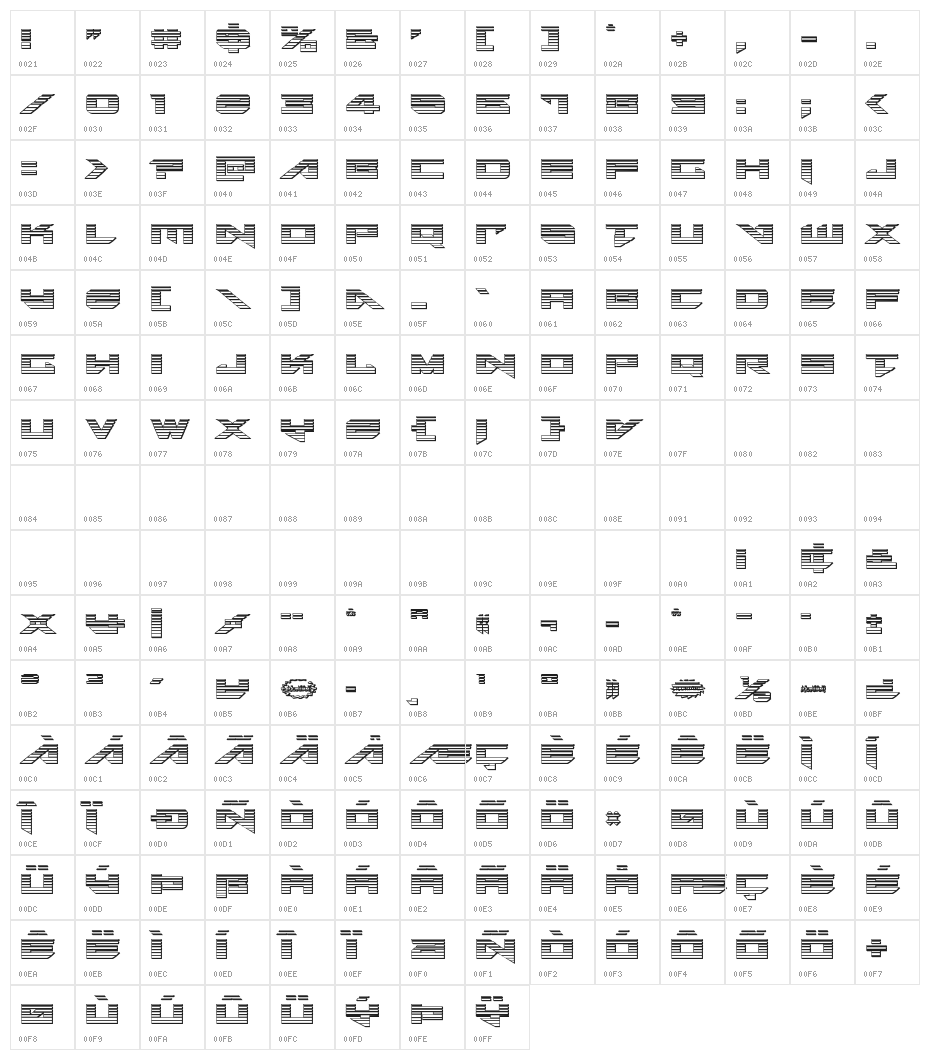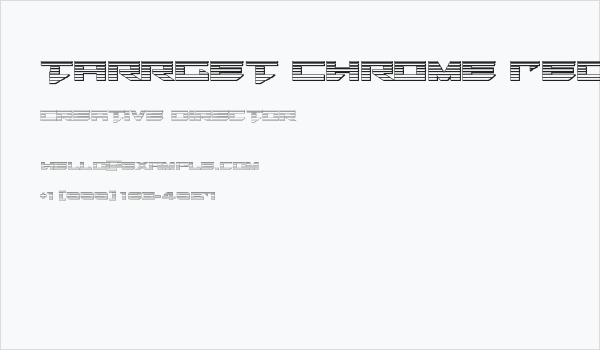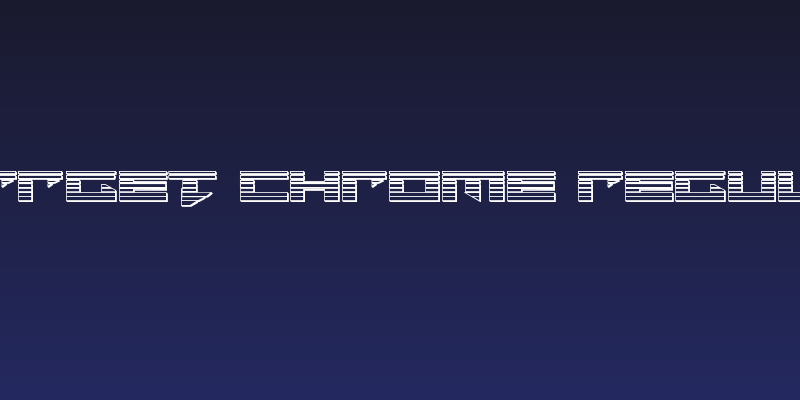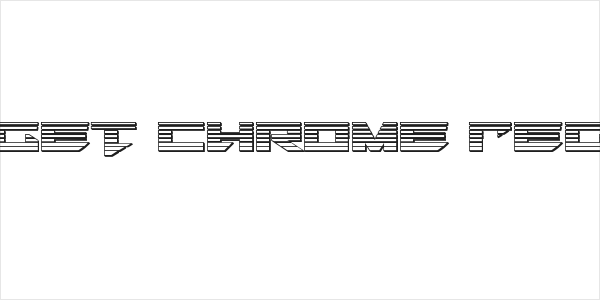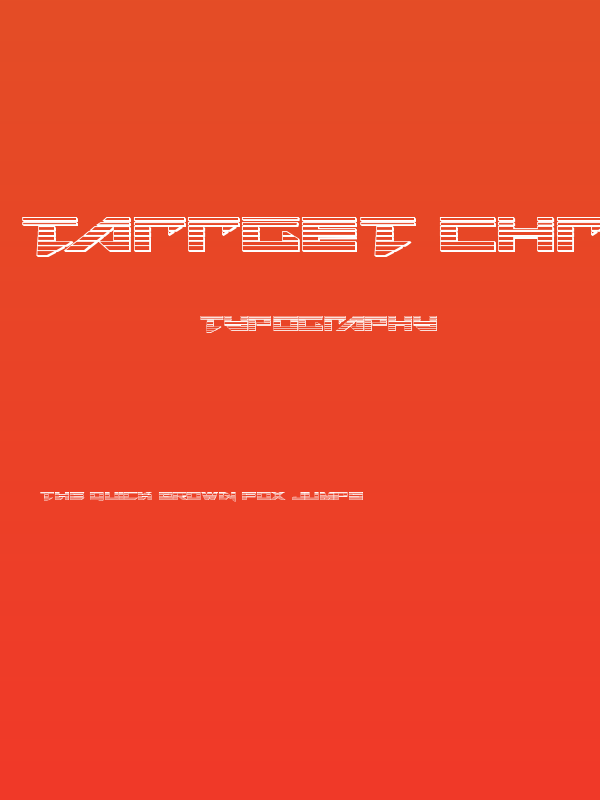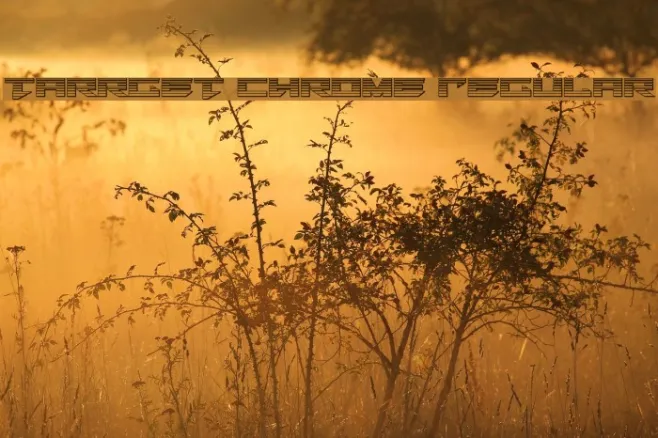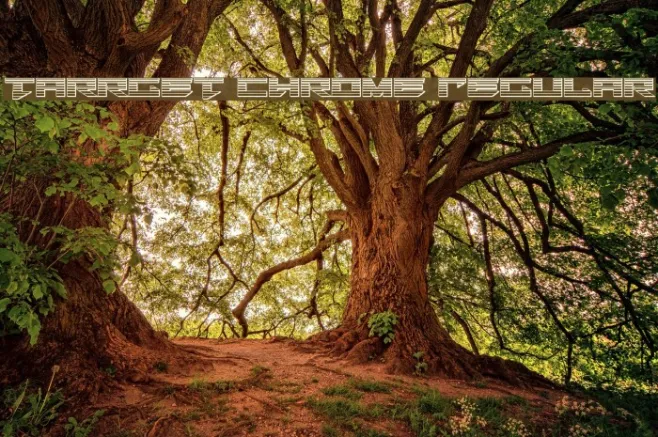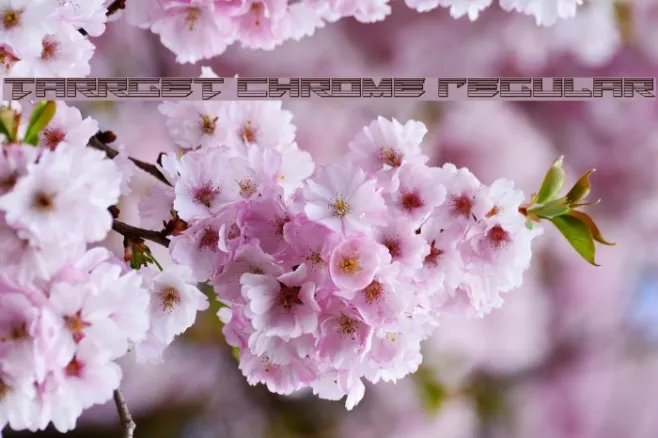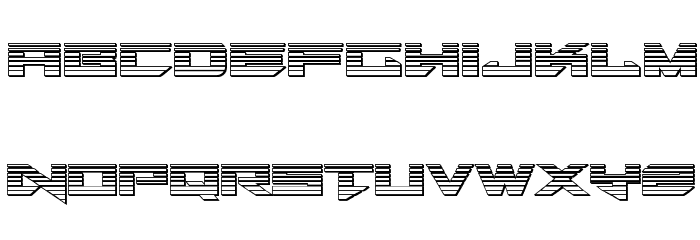
Tarrget Chrome Regular Font
Tarrget Chrome Regular Description
This font features a futuristic and geometric design, characterized by its bold, angular lines and layered, striped patterns. Each character is constructed with a series of parallel lines that create a sense of depth and dimension, giving it a unique, three-dimensional appearance. The font's structure is consistent across both uppercase and lowercase letters, as well as numbers and special characters, maintaining a cohesive aesthetic. Its distinct style makes it stand out, suitable for projects that require a modern and edgy look.
| Proposed Projects | Ideal for sci-fi themed designs, technology branding, video game titles, and modern posters. |